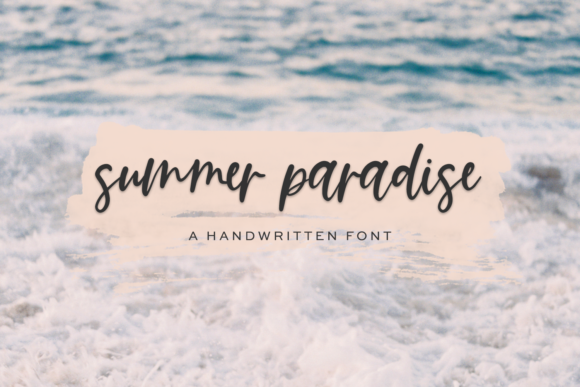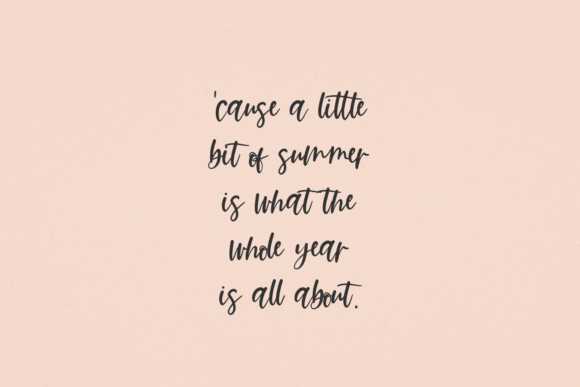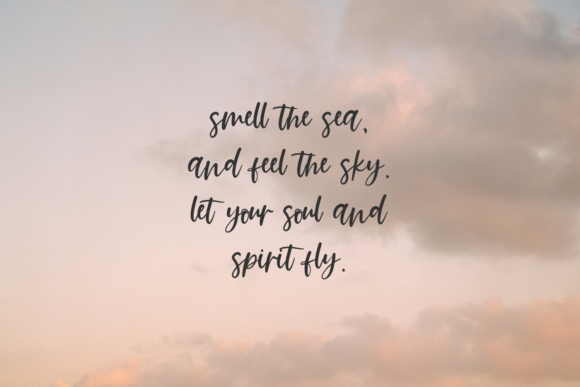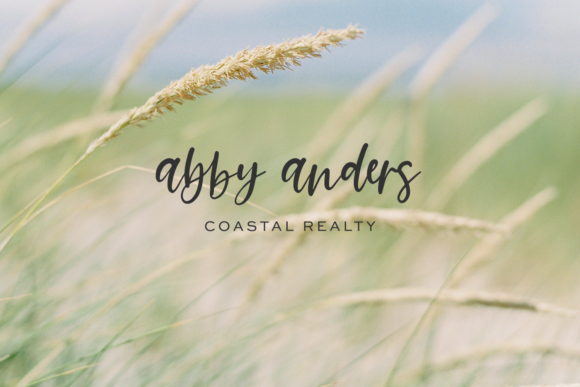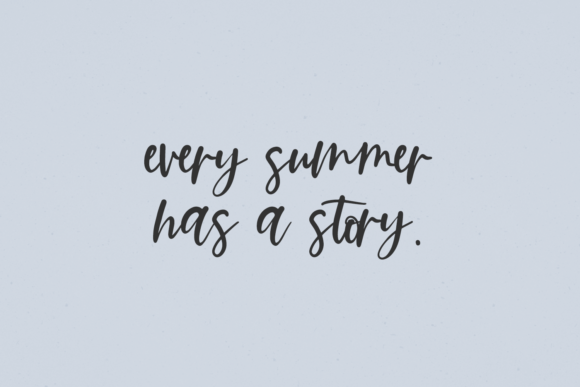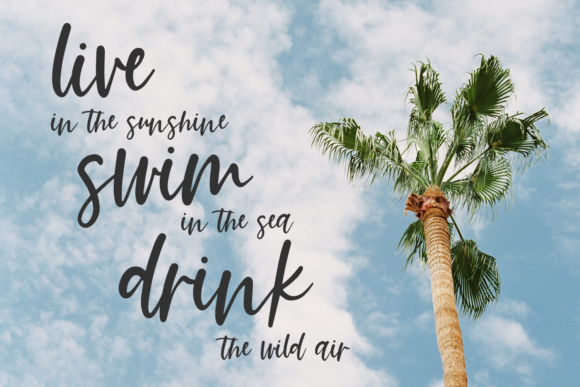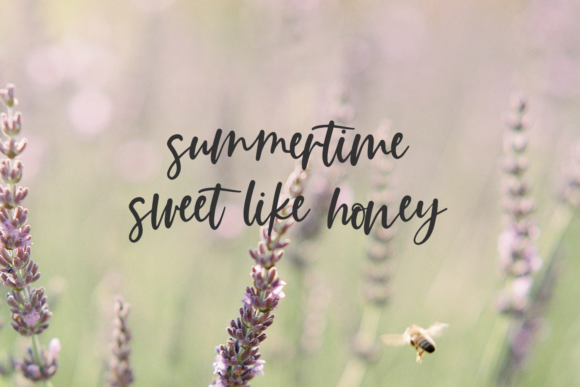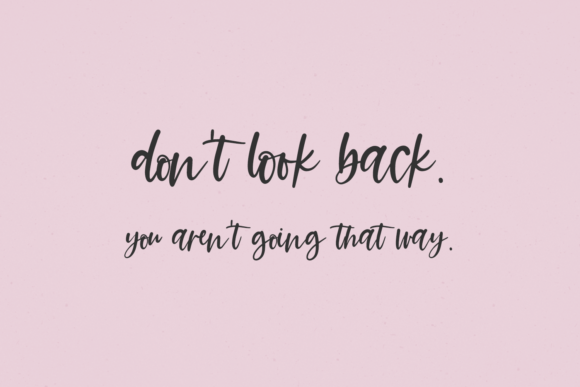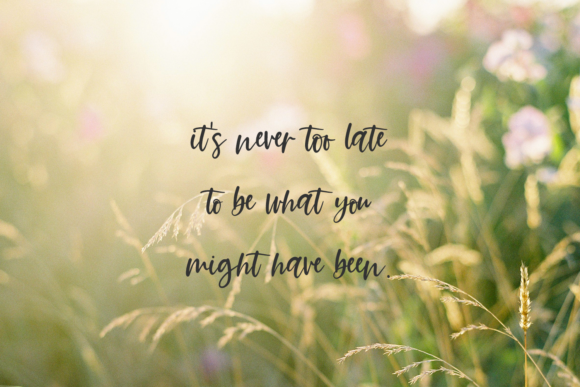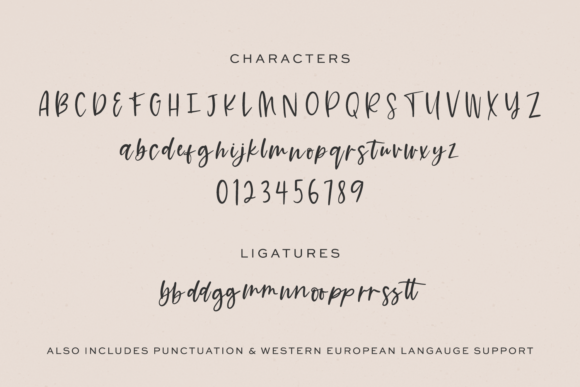
Summer Paradise Script Font
About Summer Paradise Script Font
Summer Paradise Script is a whimsical script font with a relaxed theme, featuring a lovely style. No matter the topic, this font will be an incredible asset to your fonts’ library, as it has the potential to elevate any creation.